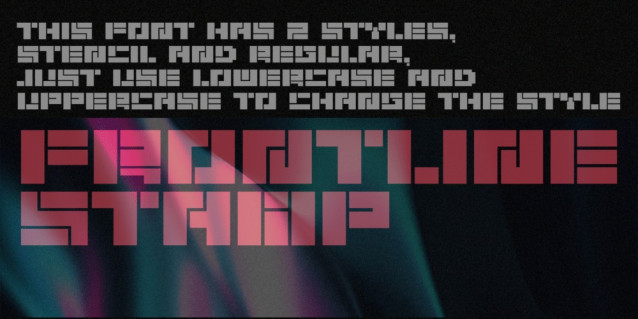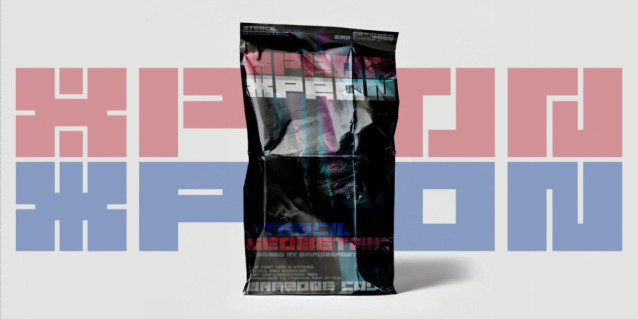
Xpron Stencil Geo Font
Xpron Stencil Geo Font is an experimental display typeface that merges the boldness of futuristic stencil forms with the clarity of geometric construction. Designed for projects that demand a strong, industrial, and modern presence.